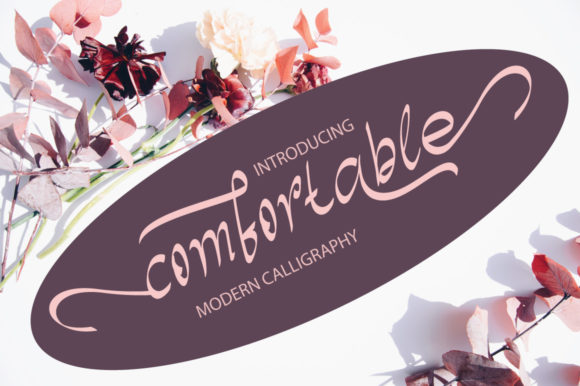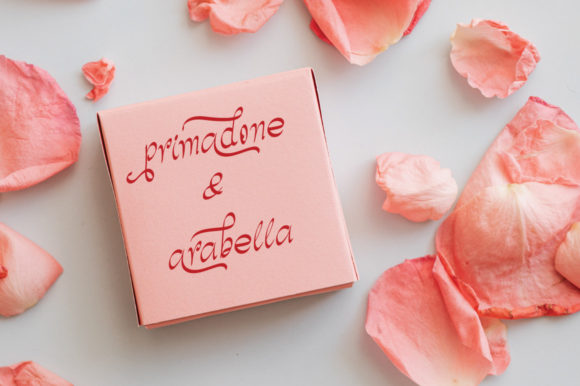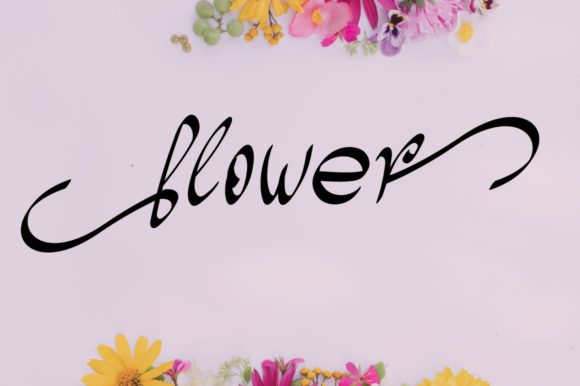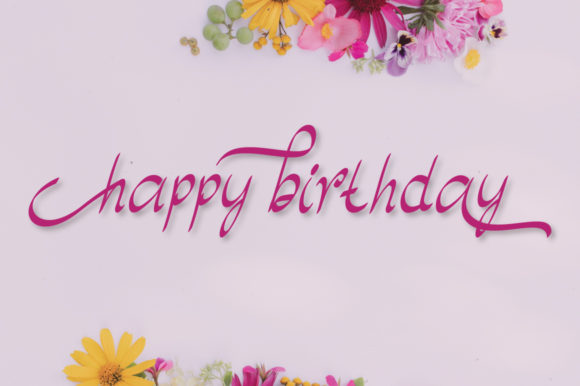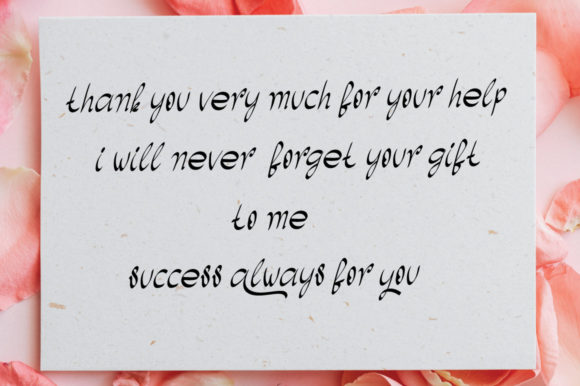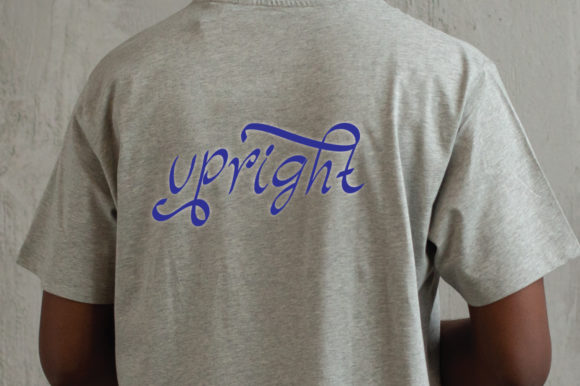
Comfortable Font
About Comfortable Font
Comfortable, a calligraphy-style handwritten font, has been meticulously crafted to embody luxury and elegance in its design. This exquisite typeface serves as a versatile tool, enhancing a myriad of creative projects with its sophisticated aesthetic. From logos to wedding invitations, t-shirts to business cards, brochures to magazines, certificates to awards, posters, and beyond, Comfortable adds a touch of refined charm to every application.
One of the standout features of Comfortable is its ability to elevate the visual identity of businesses through logos. The calligraphic strokes exude a sense of class and distinction, making your brand instantly recognizable and associated with a high level of sophistication. For special occasions like weddings, the font lends itself beautifully to invitations, imparting a timeless and romantic feel to the written word.
When it comes to wearables, Comfortable proves to be an excellent choice for t-shirts. Its handwritten elegance adds a personal touch to apparel, making a statement that goes beyond mere fashion. Business cards, as crucial elements of professional networking, benefit from the font’s refined appearance, leaving a lasting impression on potential clients and partners.
In the realm of printed materials, Comfortable brings an air of exclusivity to brochures and magazines. Its fresh characters and expensive touches contribute to a polished layout, capturing the attention of readers and conveying a sense of quality and sophistication. Certificates and awards take on an extra layer of prestige when adorned with this beautiful font, turning them into cherished keepsakes.
The versatility of Comfortable extends to poster design, where it effortlessly catches the eye with its graceful and distinctive characters. Its application in various contexts showcases its adaptability, making it suitable for a wide range of creative endeavors. The font’s PUA encoding ensures seamless access to all glyphs and swashes, providing designers with the freedom to explore and incorporate unique and intricate elements into their work.
In summary, Comfortable is not merely a font; it is a design asset that breathes luxury and elegance into every project it graces. Its application in logos, wedding invitations, t-shirts, business cards, brochures, magazines, certificates, awards, posters, and more showcases its versatility. With its fresh characters and expensive touches, Comfortable stands as a beautiful font that empowers designers to elevate their creations with ease. The PUA encoding further enhances accessibility, allowing designers to unlock the full potential of this exquisite typeface.